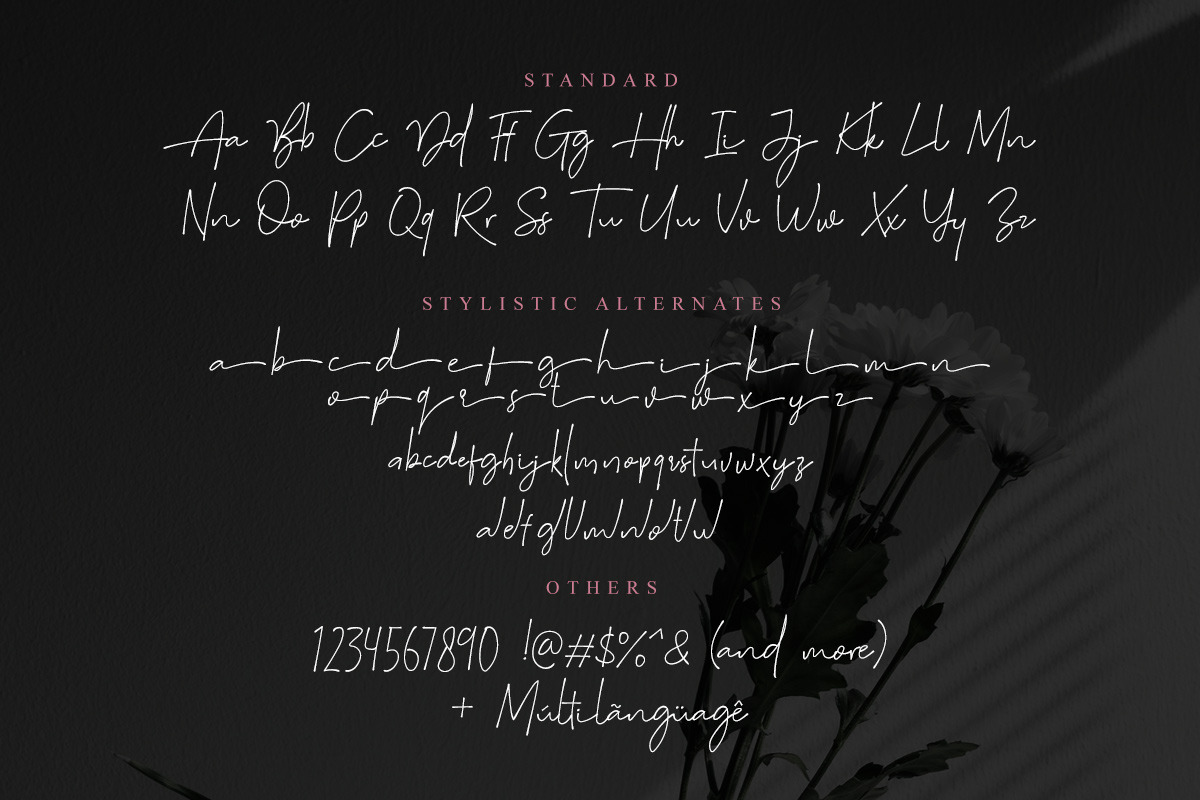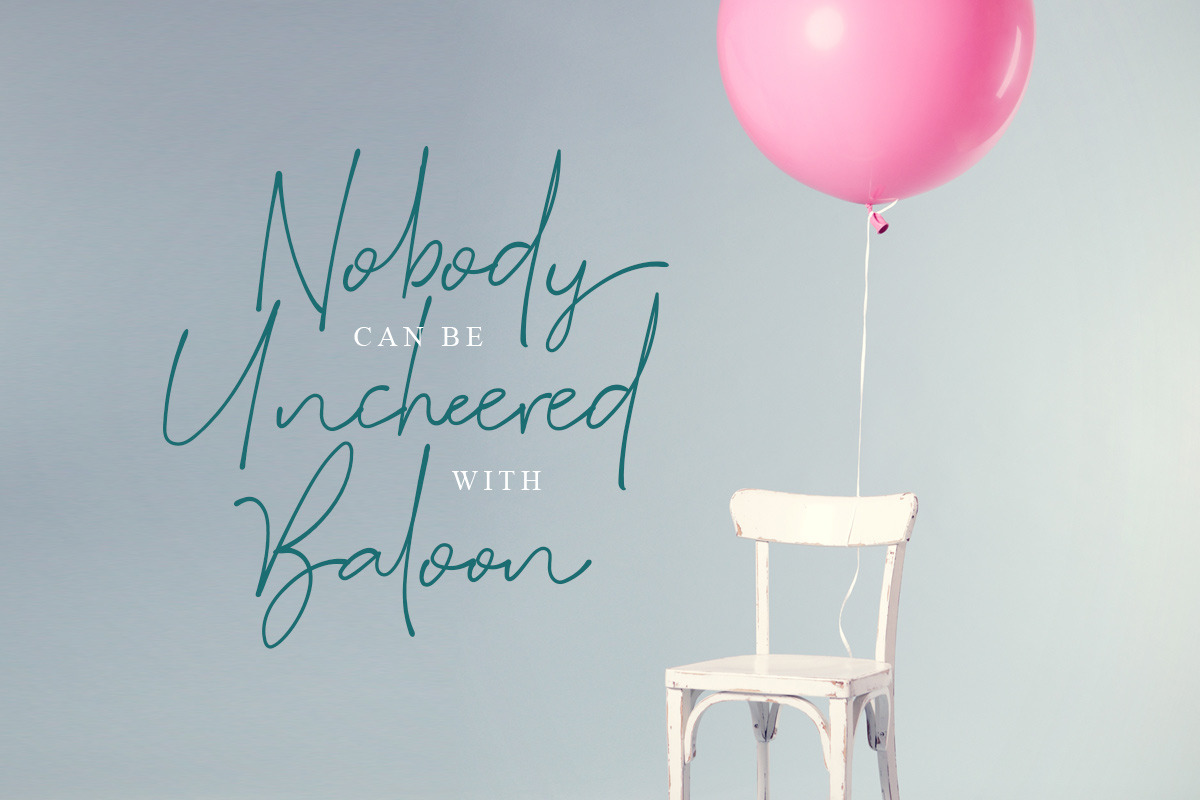
Suddenly - Signature Script
Introducing, Suddenly, classic signature family!
Suddenly is signature script with three style that contain stylistic alternate, swash, etc to create your own customized signature or logo design. This font is also support multi language. Available in OTF and TTF. Also Support PUA. It's available in three style!